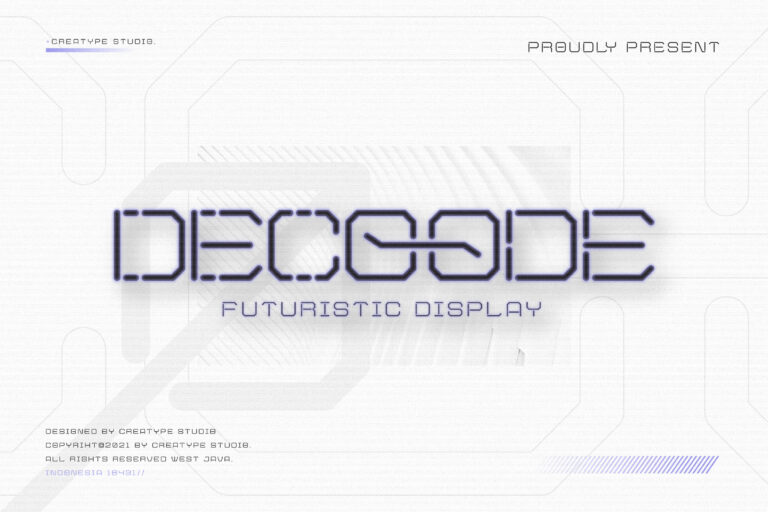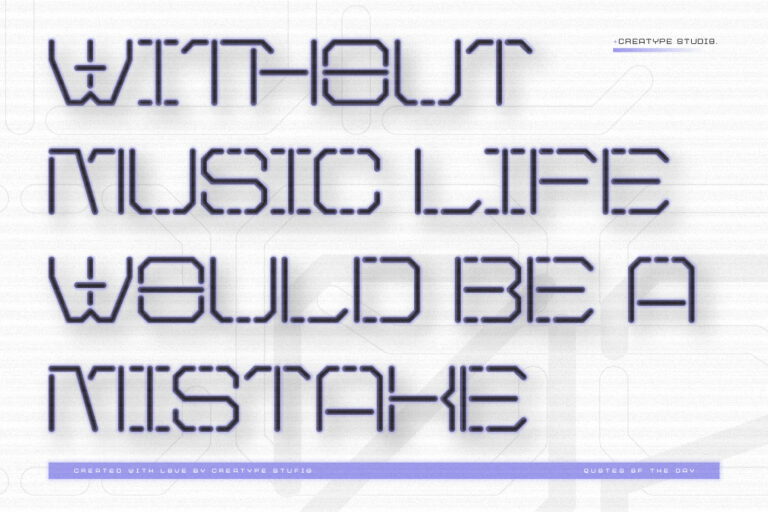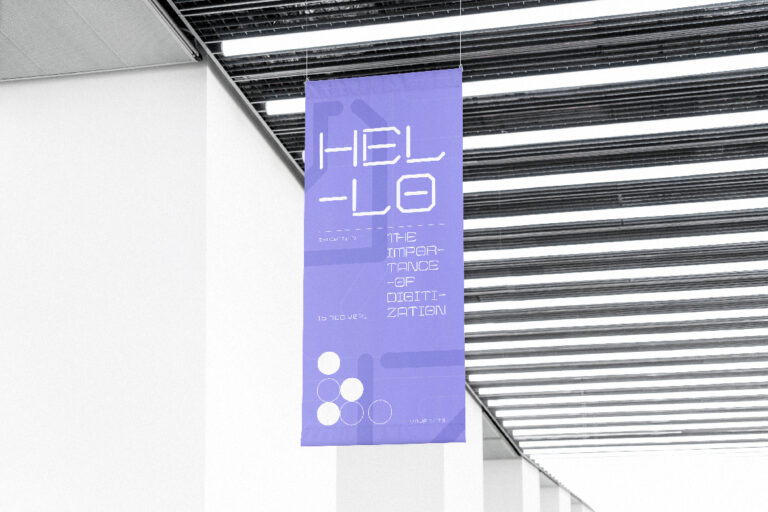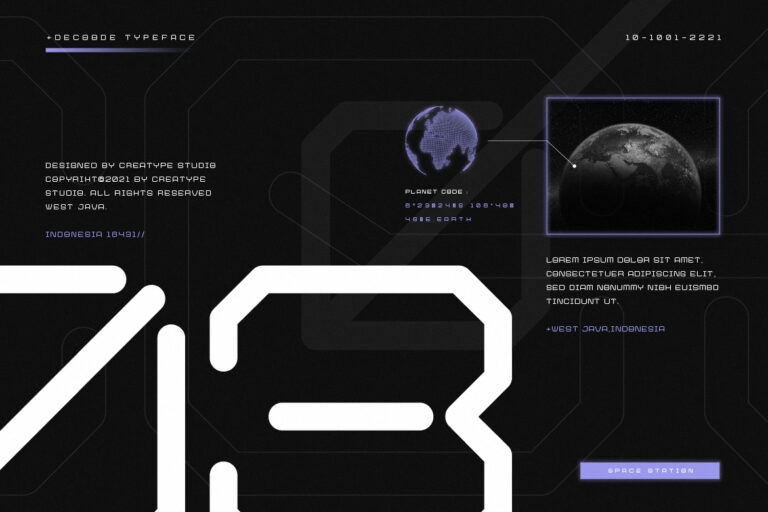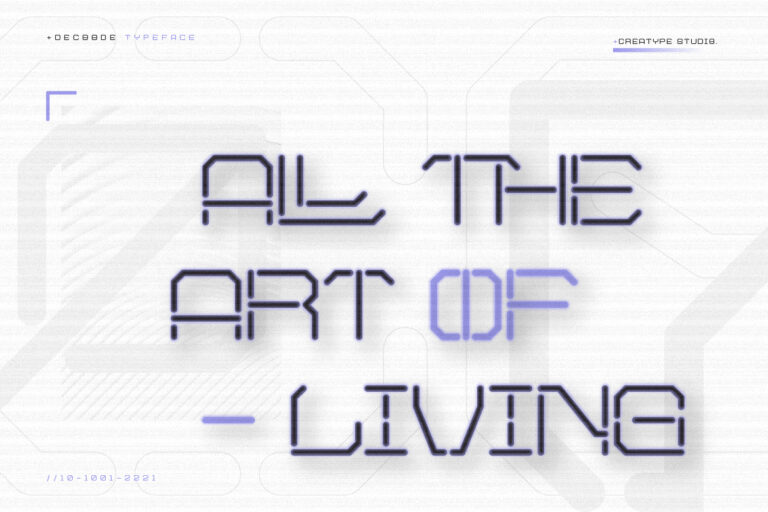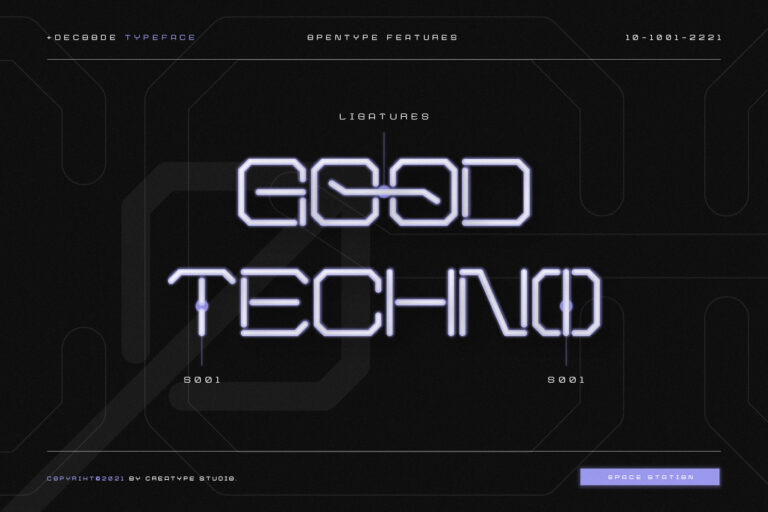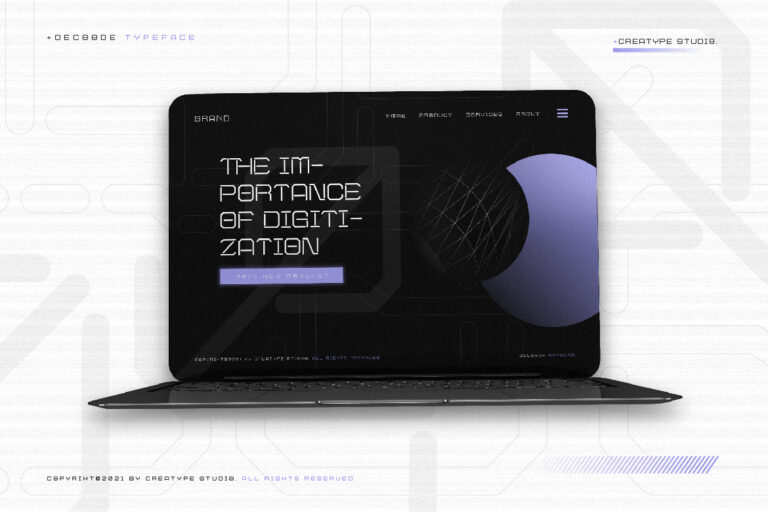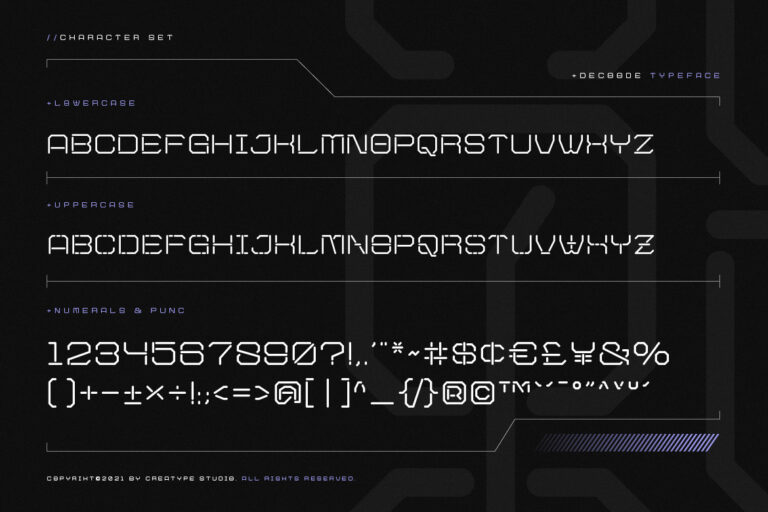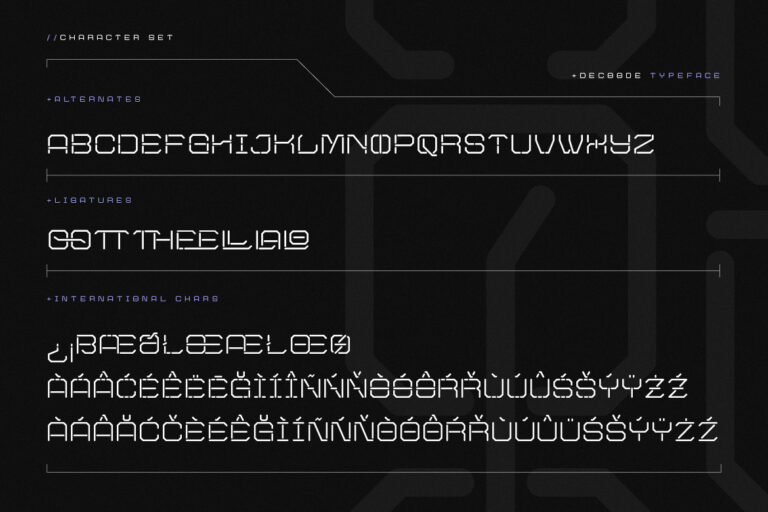
Decoode Futuristic Display
Decoode is a futuristic typeface display that is perfect for works or products such as technology, sci-fi, science, and any type of project that requires a futuristic feel.